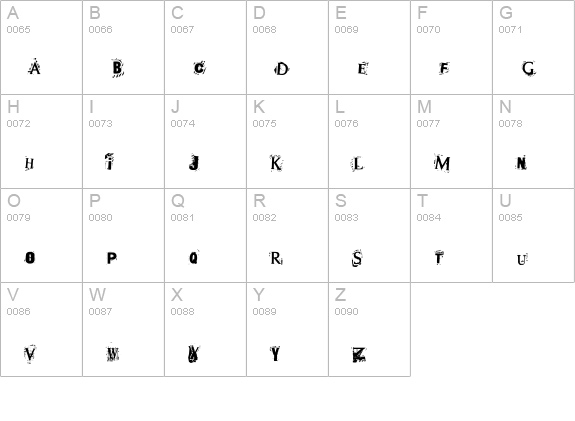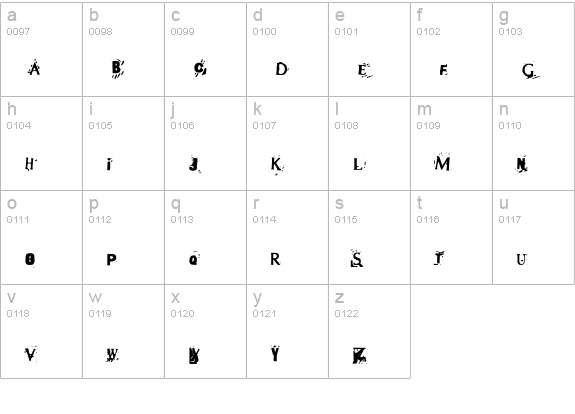
Terror2005 Font Details
Terror2005 font is a bold and edgy typeface that exudes a sense of fear and intensity. Its sharp angles and eerie design make it perfect for projects that require a touch of darkness and suspense. This font is ideal for horror movie posters, Halloween-themed designs, or any project that demands attention and a touch of the macabre. What sets Terror2005 font apart is its versatility. It can be used for both headlines and body text, making it suitable for various design applications. Its legibility remains intact even at smaller sizes, ensuring that your message is communicated effectively. But what truly sets this font apart is the fact that it is free. That's right, you can freely download Terror2005 font at FontsMarket.com. This means that you can add a dose of terror to your designs without breaking the bank. Whether you're a professional designer or a hobbyist, this font is a valuable addition to your arsenal. So why wait? Download Terror2005 font today and unlock its frightening potential. Let your designs unleash a wave of terror and captivate your audience with this captivating and freely available font.